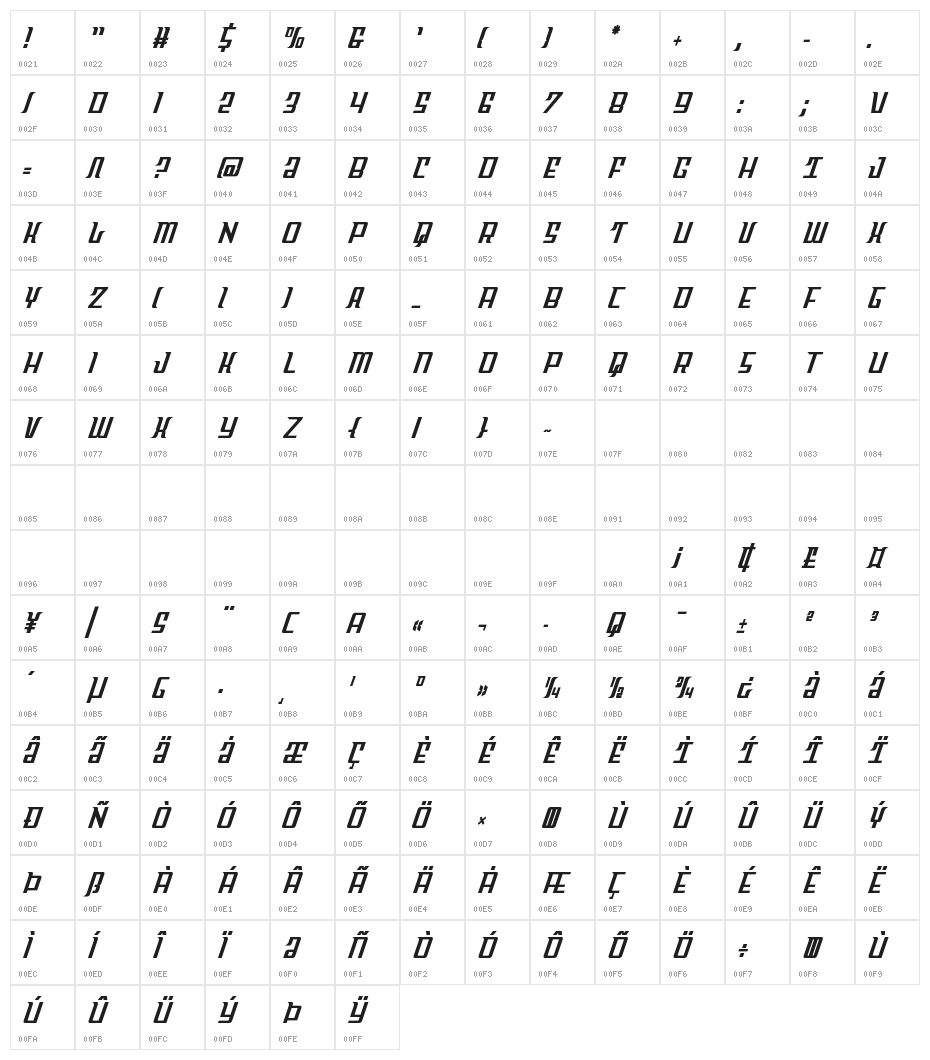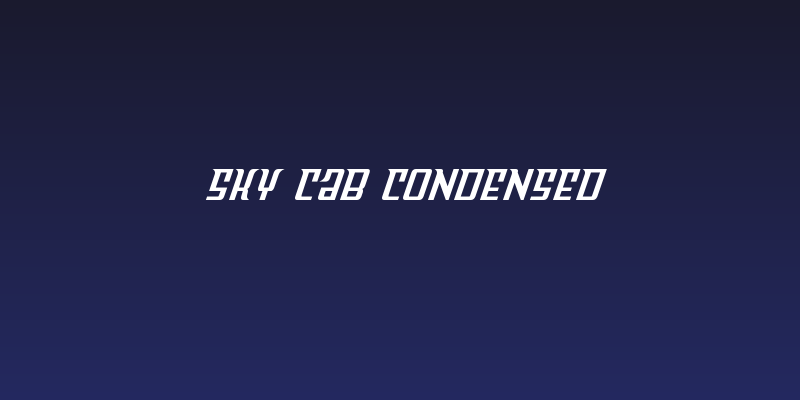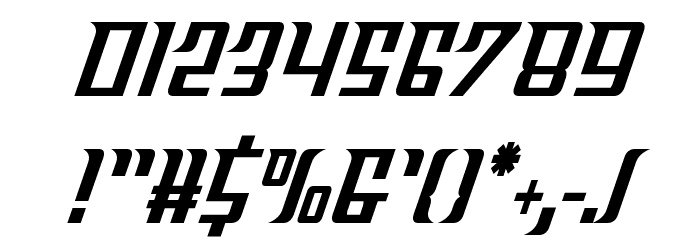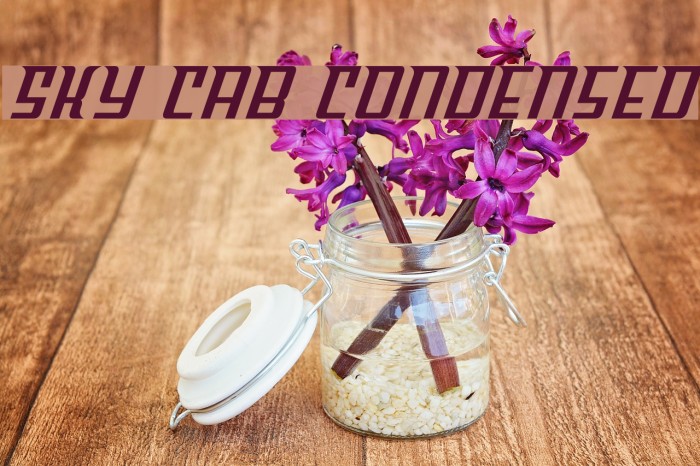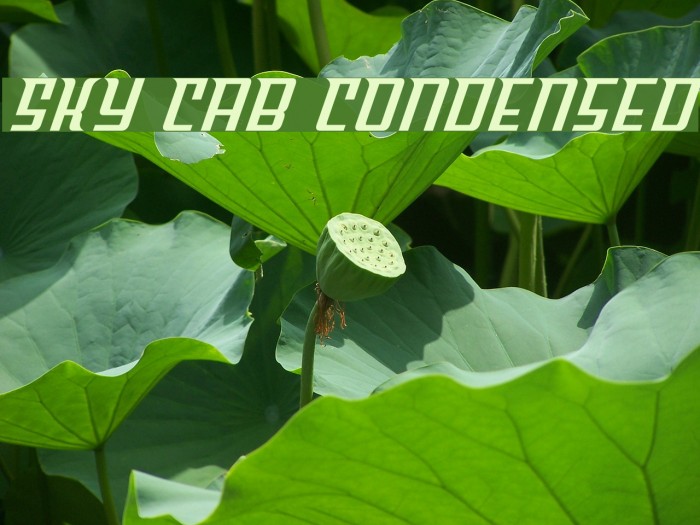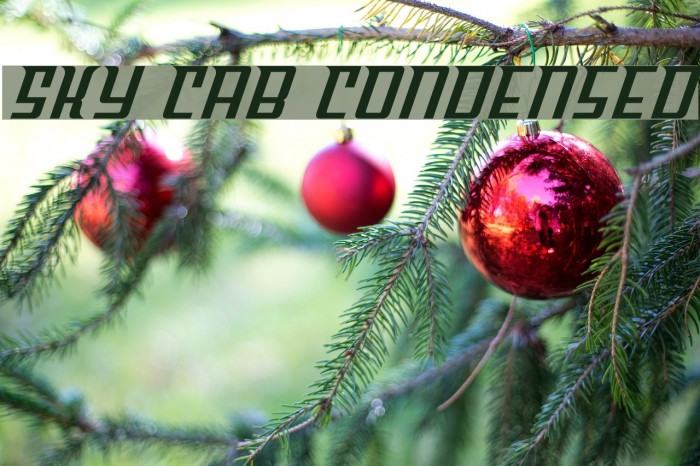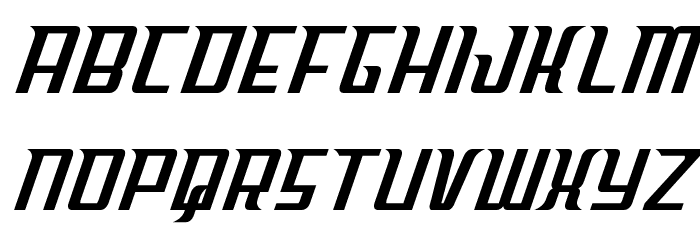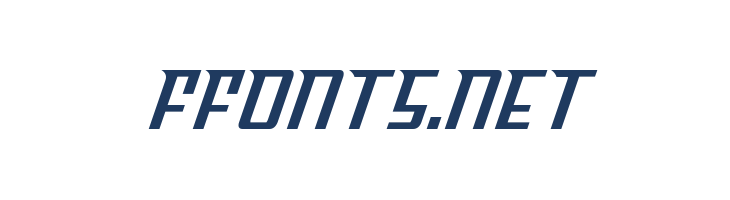
Sky Cab Condensed Font
Sky Cab Condensed Description
This font features a bold, condensed style with a strong geometric influence. The characters are slanted, giving a dynamic and forward-moving appearance. The uppercase and lowercase letters maintain a consistent height, enhancing the uniformity of the design. The numbers are equally bold and follow the same slanted style, ensuring consistency across all characters. Special characters are designed to match the overall aesthetic, with sharp angles and clean lines. The font's condensed nature makes it suitable for tight spaces while maintaining readability.